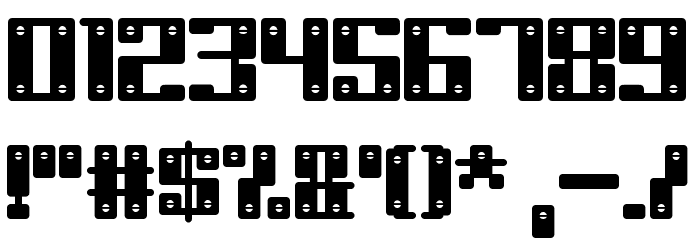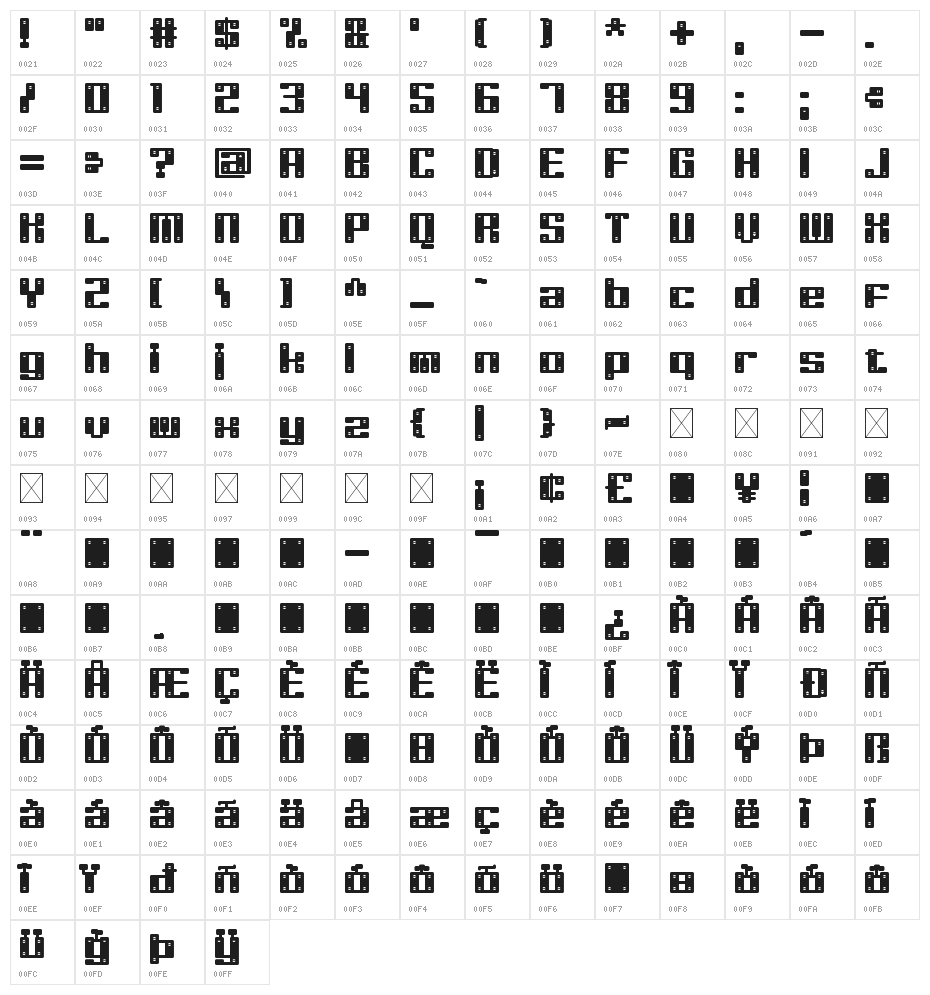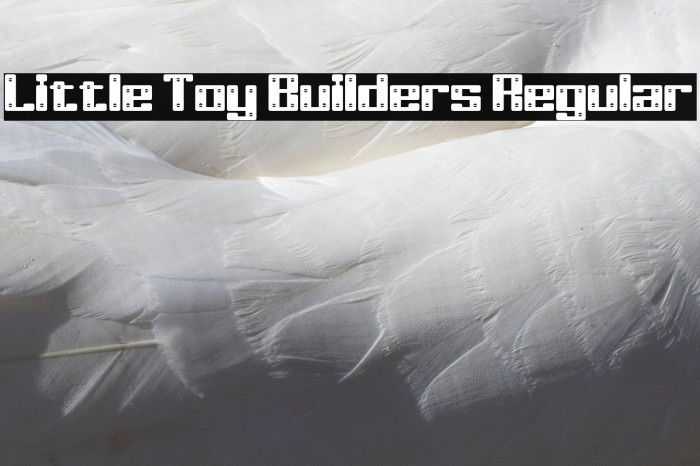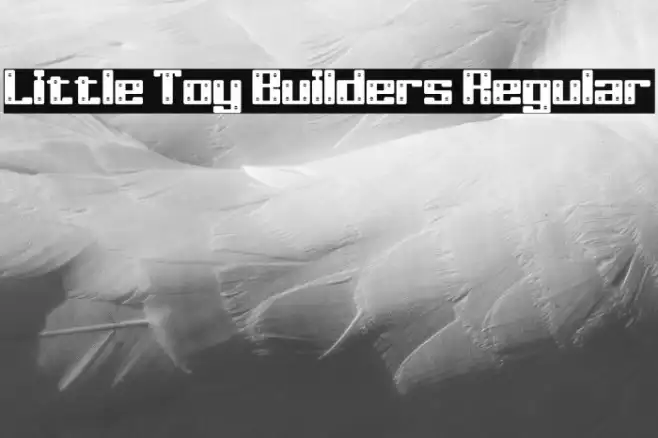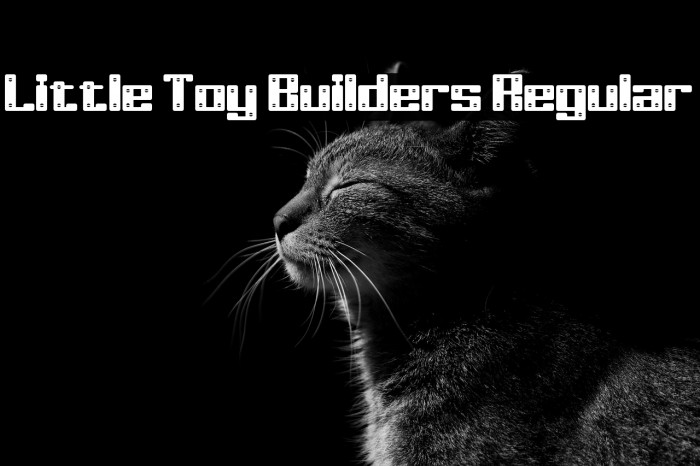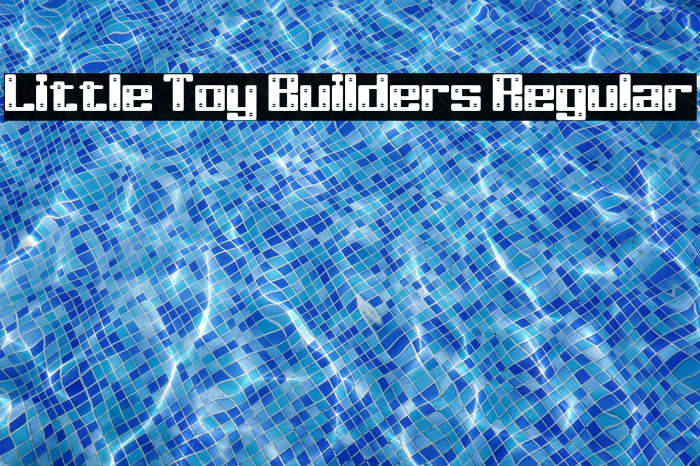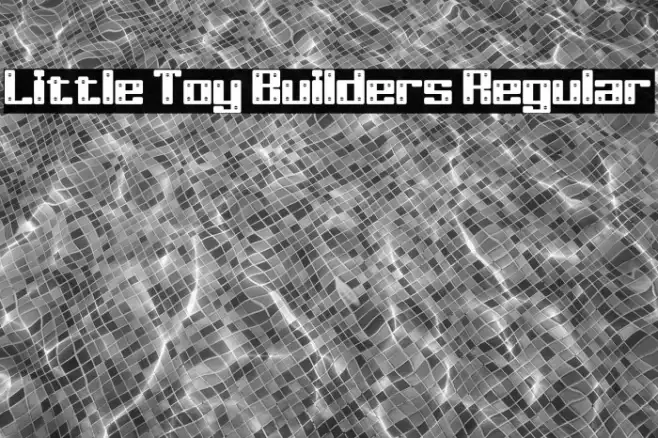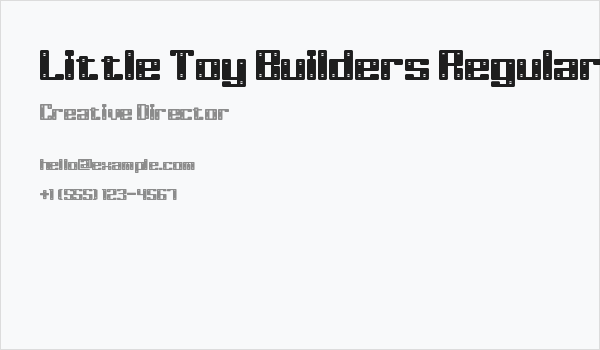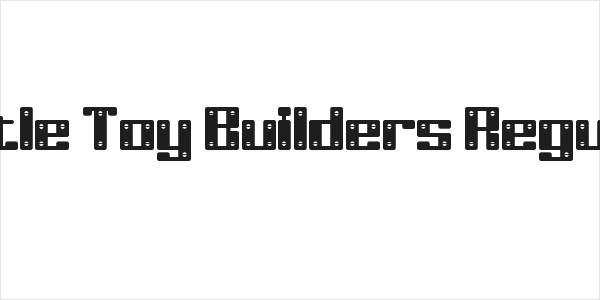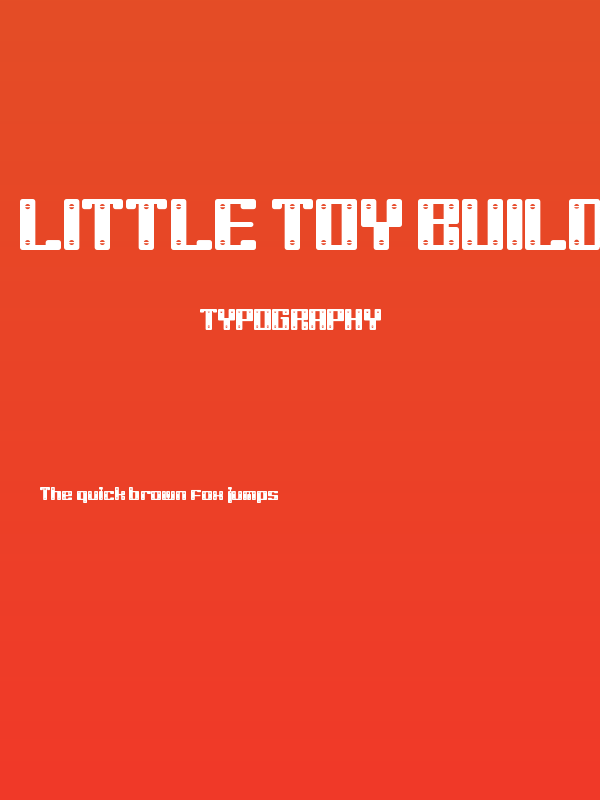
Little Toy Builders Regular Font
Little Toy Builders Regular Description
This playful and imaginative font is inspired by the look of toy building blocks, featuring bold, geometric shapes with circular cutouts reminiscent of construction toys. Each character is constructed with a uniform thickness, creating a cohesive and structured appearance. The font's unique design elements, such as the rounded edges and the evenly spaced holes, give it a distinctive and engaging look. It is perfect for projects that require a fun and creative touch, appealing to both children and adults. The font maintains a consistent weight and width across all characters, ensuring readability while adding a playful twist.
| Proposed Projects | Ideal for children's books, toy packaging, educational materials, and playful branding. |